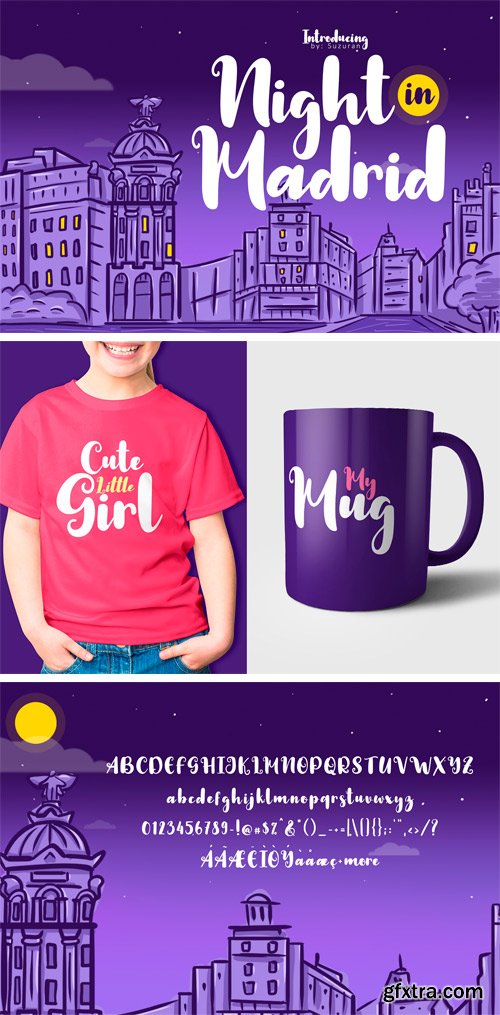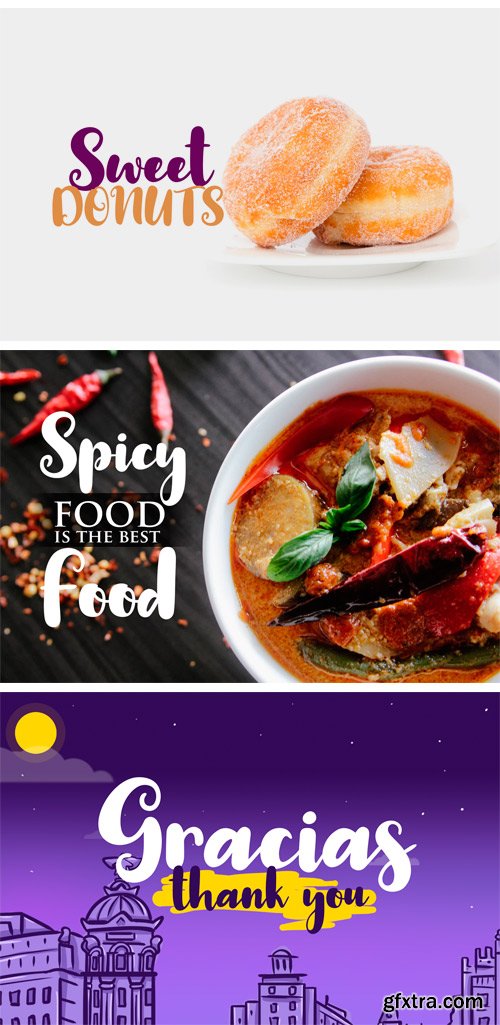
Night in Madrid, 2 font with cheerful theme for your fun project. Night in Madrid script font has 2 different styles, regular & gradient. Night in Madrid font suitable for logo, branding, greeting card, branding, poster and any design that you create.